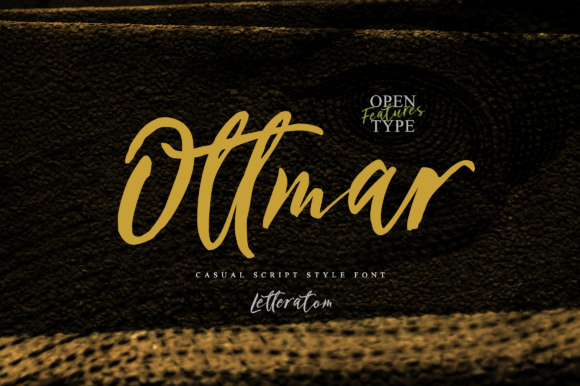
Outtmar Font
Unleash the captivating charm of Outtmar's script typeface, a masterpiece crafted by the renowned Letteratom. Prepare to be enthralled by its captivating curves and dynamic strokes that evoke a symphony of emotions.
Outtmar's essence is a harmonious blend of boldness and grace, a captivating dance between the assertive and the elegant. Its every letter is a testament to the power of imagination, carrying the potential to transform your words into captivating works of art.
Immerse yourself in the world of Outtmar, where creativity knows no bounds. Its versatility is a boundless canvas, empowering you to paint across a myriad of design projects. Whether you're crafting enchanting invitations, mesmerizing logos, or captivating social media posts, Outtmar stands ready to elevate your vision.
Experience the transformative power of Outtmar, a font that captivates with its unique appeal. Its presence is sure to spark inspiration, igniting your imagination and propelling your designs to new heights of brilliance.
Dare to step beyond the ordinary and embrace the extraordinary with Outtmar, the script font that empowers you to craft captivating messages that resonate with your audience. Let your words dance with newfound elegance and charm, leaving an unforgettable mark.